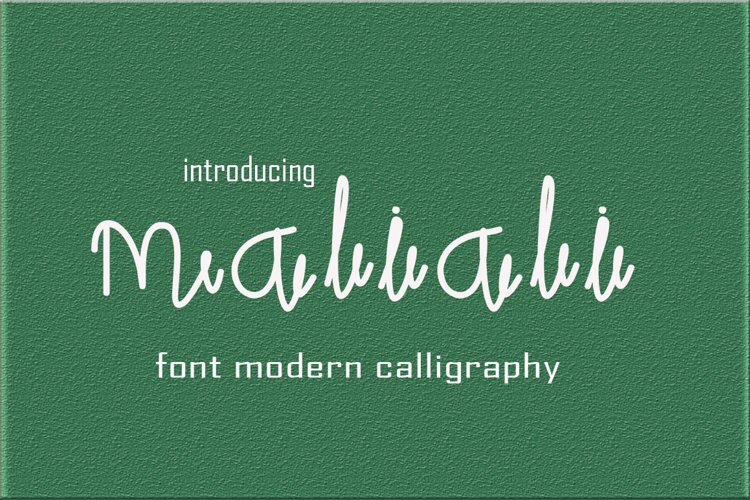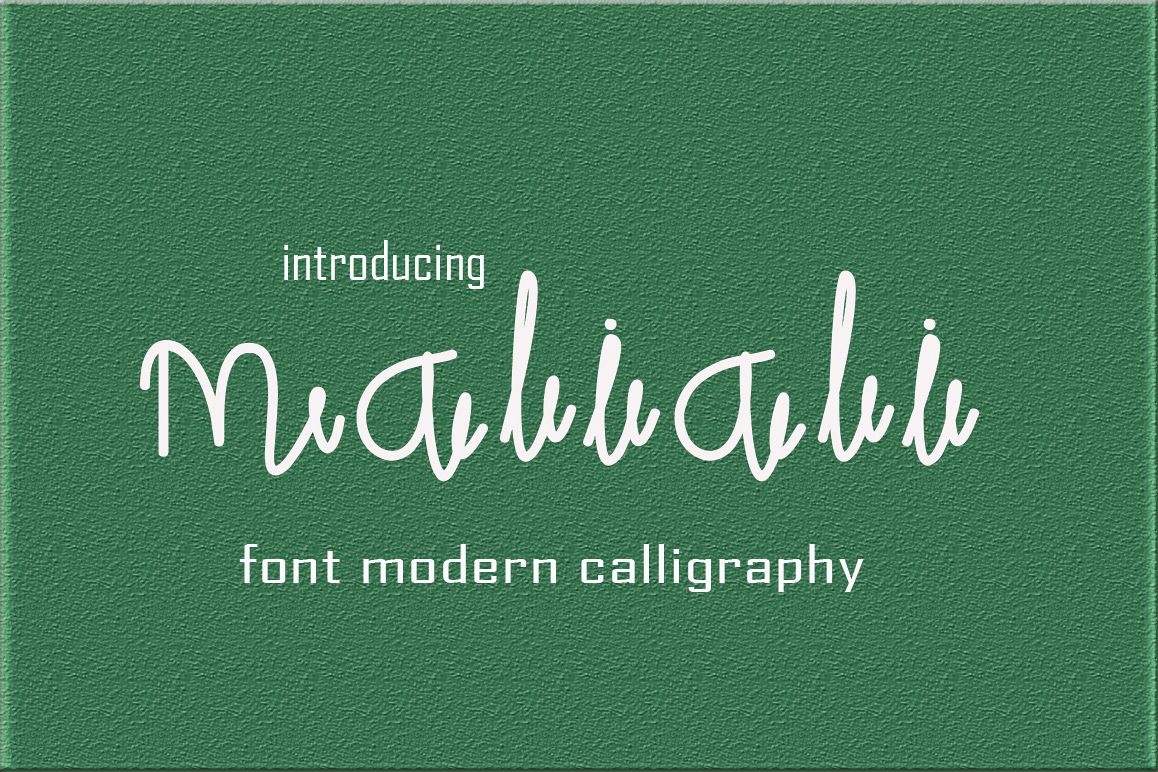
Maliali Font Duo is new sans serif font has a sleek typeface, font is very simple and easy to manipulate: logo, slogan and made in advertising messages.